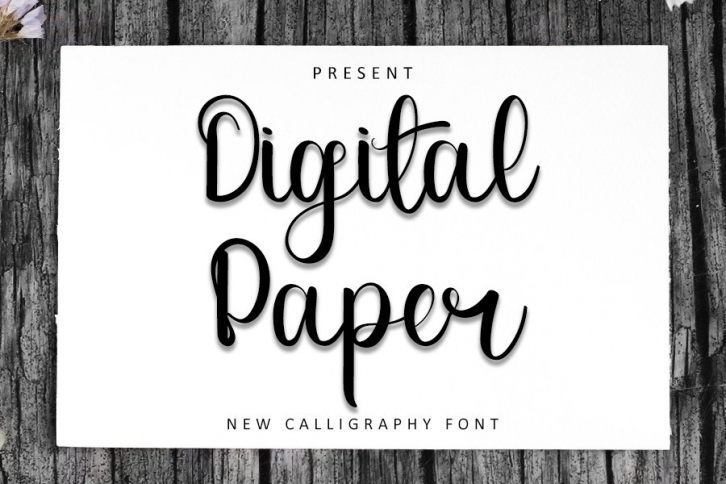
Digital Paper is a trendy and unique font with an authentic style. It was designed by InermediaSTUDIO and it's a great choice for creative people who need such a font. It was released on April 17, 2022 and the file size is 14.57 MB. Digital Paper will add an organic vibe to any design idea!